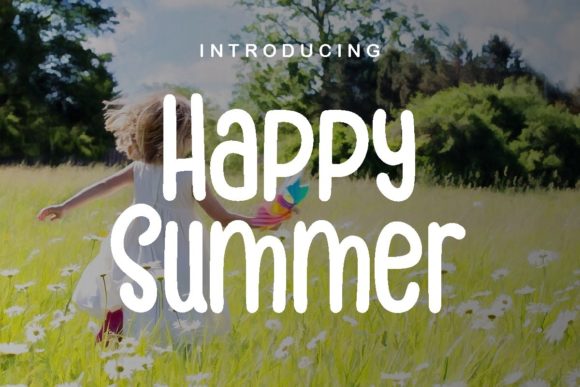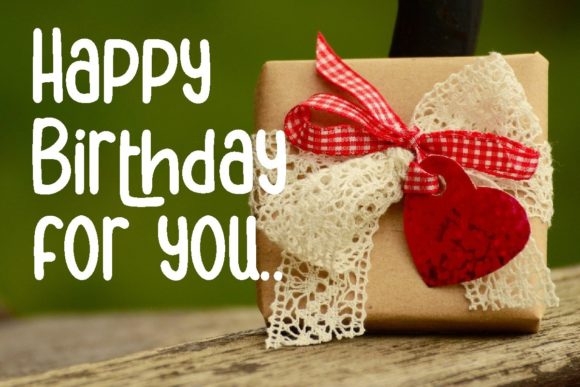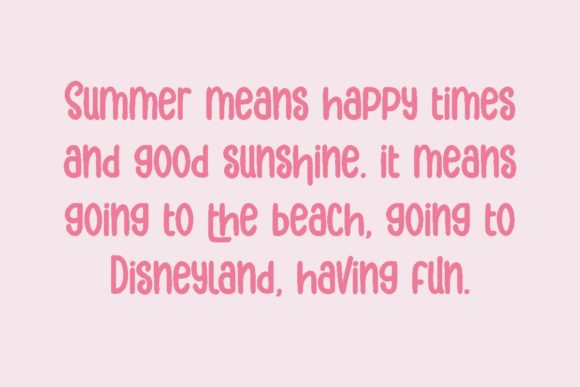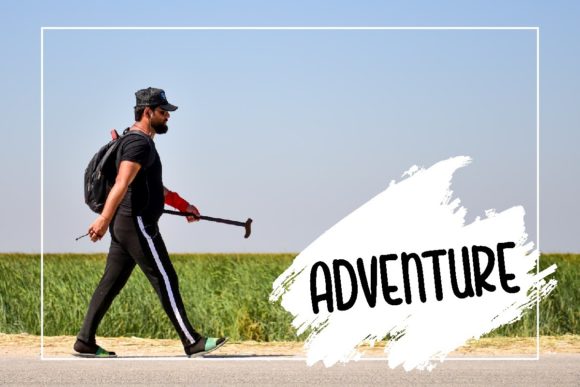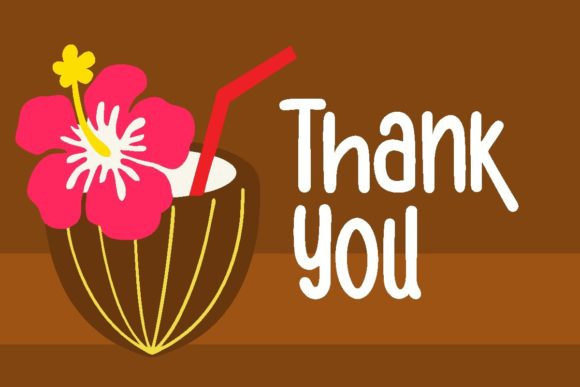
Happy Summer Font
About Happy Summer Font
Happy Summer is a simple and sweet handwritten font. Whether you use it for cartoon related designs, children games or just any creation that requires a lovely touch, this font will be an amazing choice.